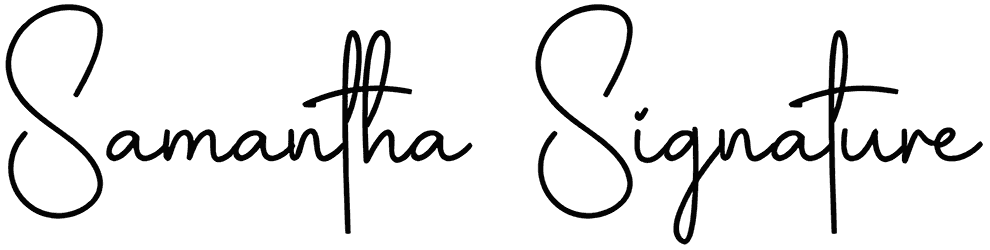
Samantha Signature Font
A soft and modern letterform, like what this handwritten can provide, will make your design friendly and elegant. The realistic and casual form of the letters can act as a perfect adornment for your travel postcard or an Instagram story. With an almost full cover of characters, apply the Samantha Signature font to your intended project and enjoy the feedback.
Samantha Signature is an exquisite handwritten font, masterfully designed to become a true favorite. It maintains its classy calligraphic influences while feeling contemporary and fresh.